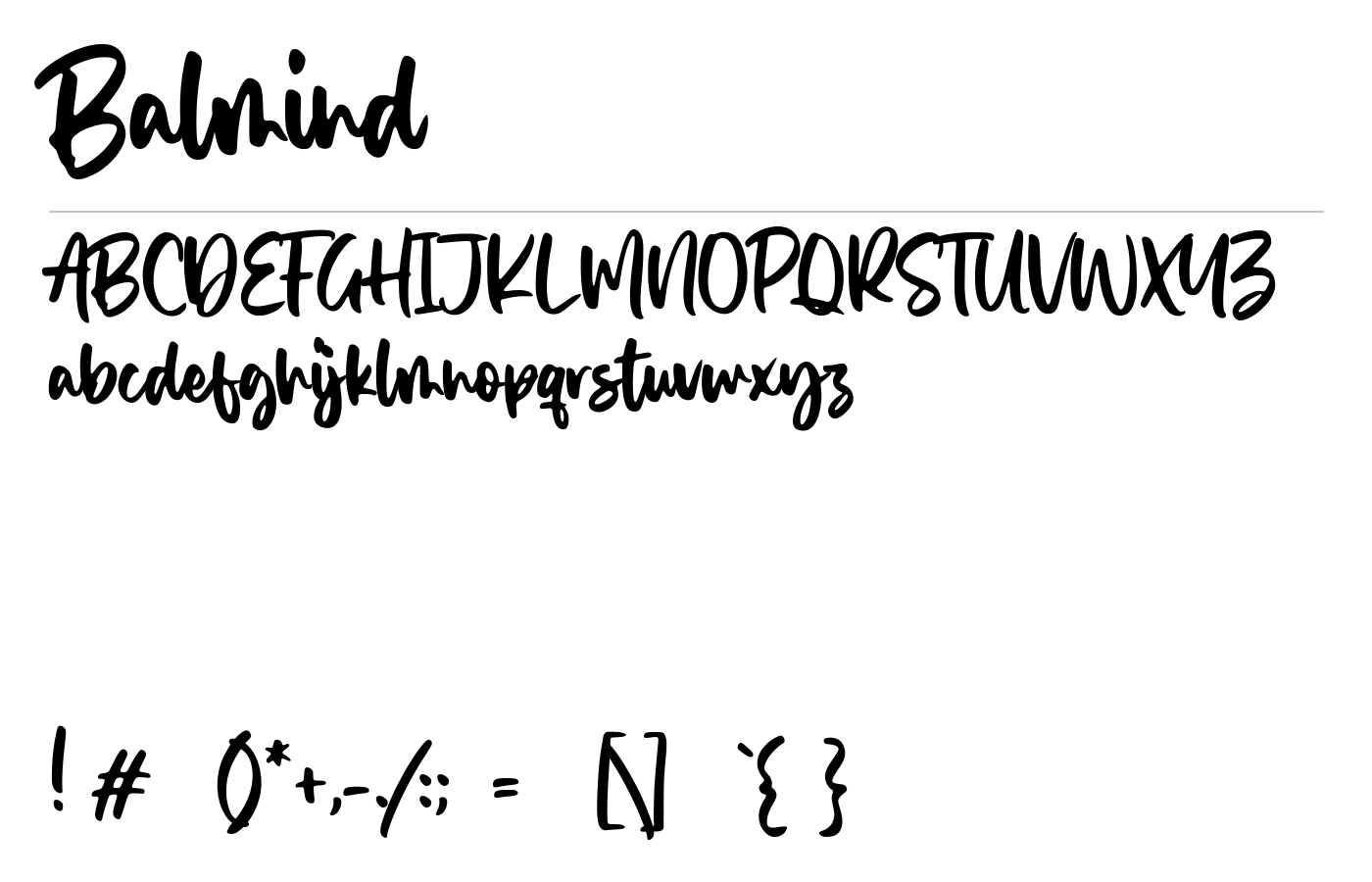
Balmind is a bold, casual script font with a lively and organic feel, featuring smooth, rounded strokes that mimic natural handwriting. Its friendly and approachable style makes it ideal for branding, packaging, and creative projects that seek a personal, informal touch. This font works well in headlines and logos where a dynamic, handwritten look can add warmth and personality.
Balmind Font
About Balmind Font
| Font family | Balmind Font |
| Designer | Annas Alam Yahya |